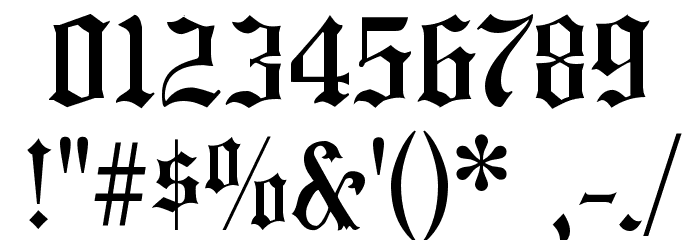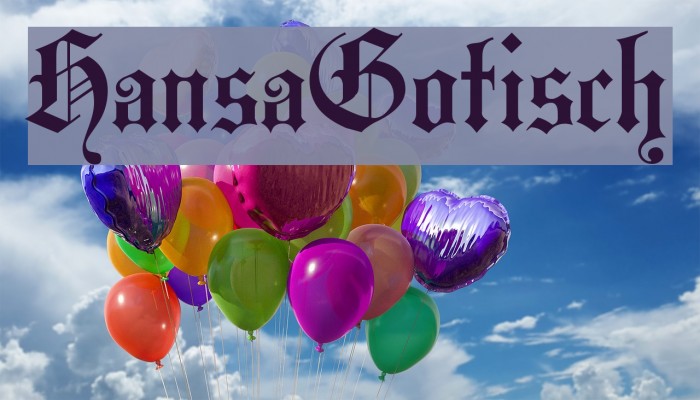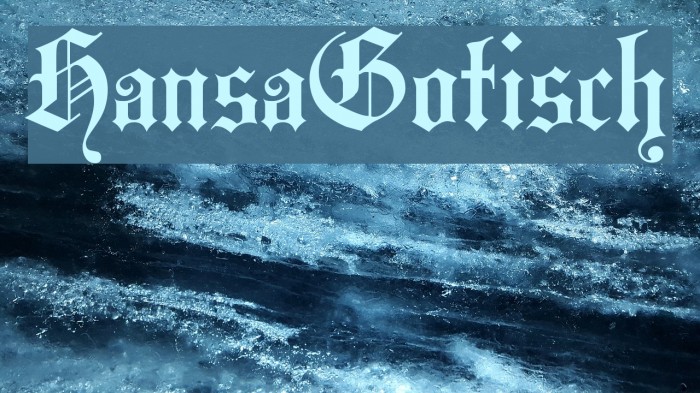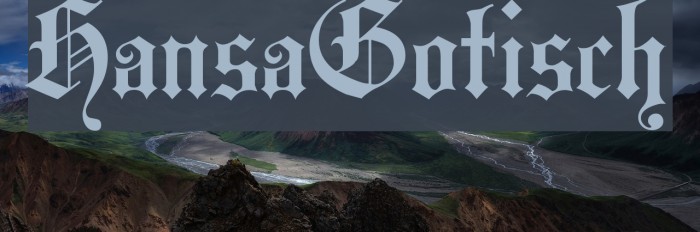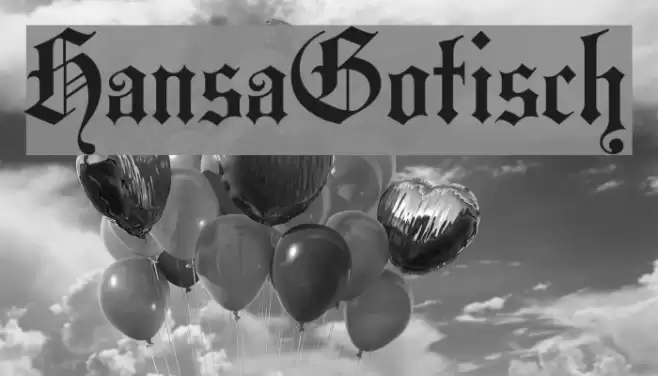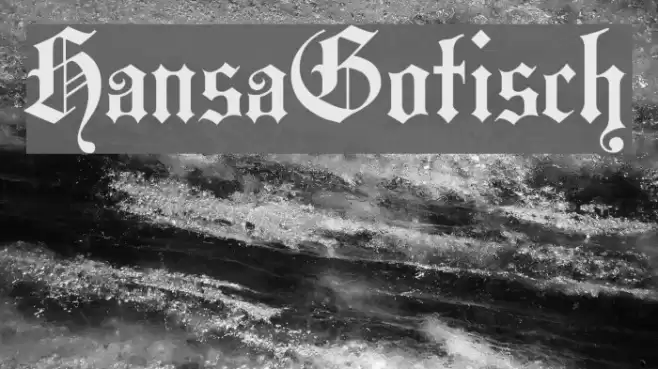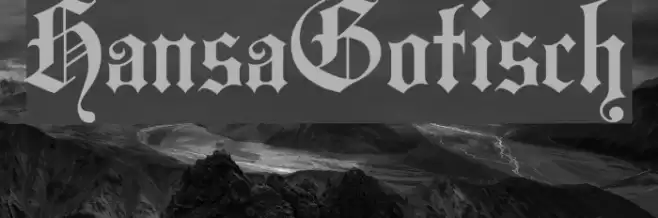
HansaGotisch Font
This font embodies the traditional elegance and intricate design of classic blackletter typefaces. Each character is crafted with sharp, angular lines and elaborate flourishes, evoking a sense of historical depth and sophistication. The uppercase letters are particularly ornate, featuring pointed serifs and dramatic strokes that create a striking visual impact. The lowercase letters maintain a consistent style, with a slightly more subdued appearance that complements the uppercase set. Numbers and special characters are designed with the same attention to detail, ensuring a cohesive look across all text elements. This font is ideal for projects that require a touch of vintage charm and a nod to medieval script traditions.
A classic blackletter font with intricate, angular designs and historical elegance.
- Proposed Projects: Ideal for certificates, invitations, branding for luxury products, or any project requiring a vintage or historical aesthetic.
- Category: Blackletter
- Overall Style: Vintage
- Use Case: Logos, Headlines, Decorative text